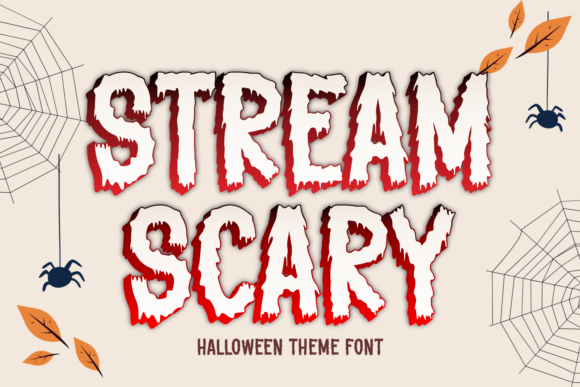
Stream Scary Font: The Ultimate Choice for Spooky Designs
Are you looking for a font that can add a touch of horror and creepiness to your designs? Look no further than the Stream Scary font. This font is perfect for Halloween-themed designs, horror movies, and any project that requires a spooky and eerie vibe.
What is Stream Scary Font?
The Stream Scary font is a unique and dramatic font that is designed to evoke a sense of horror and creepiness. Each letter is sketched with a blood-curdling drip effect, imparting an undeniable aura of horror and creepiness. The font has an unsmooth, worn out, and jagged texture, which gives it an unsettling, vintage feel.
The font is perfect for designs that require a bold and attention-grabbing style. The uppercase letters in the font scream strength and boldness, making it perfect for titles, headings, and emphasis text.
Uses of Stream Scary Font
The Stream Scary font is versatile and can be used in a variety of designs, including:
- Halloween-themed designs, such as event posters, flyers, and social media posts
- Horror movie titles, posters, and promotional materials
- Eerie event posters and invitations
- Chilling product and service branding
- Halloween-focused packaging, such as candies, toys, and treats
- Digital media, such as YouTube thumbnails, social media posts, and Halloween-themed website banners
- Merchandise, such as t-shirts, mugs, and other Halloween-themed items
Benefits of Using Stream Scary Font
Using the Stream Scary font in your designs can have several benefits, including:
- Adding a touch of horror and creepiness to your designs
- Creating a bold and attention-grabbing style
- Evoking a sense of Halloween spirit and atmosphere
- Perfect for horror movie and Halloween-themed designs
- Easily readable and understandable, even in small sizes
Design Tips for Using Stream Scary Font
Here are some design tips to keep in mind when using the Stream Scary font:
- Use the font in moderation, as too much of it can be overwhelming
- Pair the font with other fonts that complement its style
- Use the font in combination with images and graphics to create a cohesive design
- Experiment with different colors and textures to enhance the font’s effect
Features of Stream Scary Font
The Stream Scary font has several features that make it unique and effective, including:
- Unique and dramatic design
- Blood-curdling drip effect on each letter
- Unsmooth, worn out, and jagged texture
- Uppercase letters scream strength and boldness
- Perfect for horror movie and Halloween-themed designs
The Stream Scary font is a unique and effective font that can add a touch of horror and creepiness to your designs. Its dramatic design, blood-curdling drip effect, and unsmooth texture make it perfect for Halloween-themed designs, horror movies, and any project that requires a spooky and eerie vibe.
Whether you’re designing a Halloween-themed poster, a horror movie title, or a chilling product brand, the Stream Scary font is the perfect choice. Its versatility and bold style make it easy to use in a variety of designs, and its features make it a standout font that will grab attention.